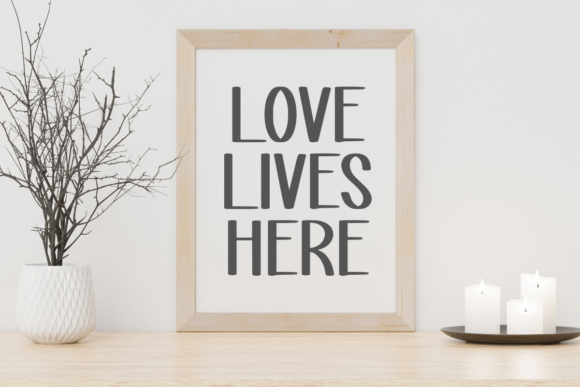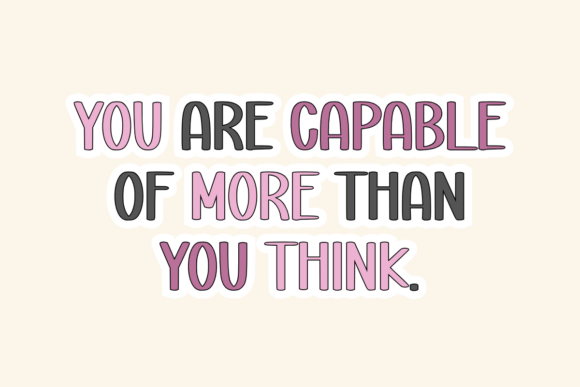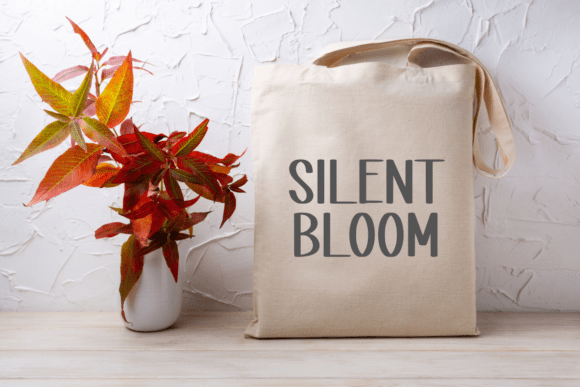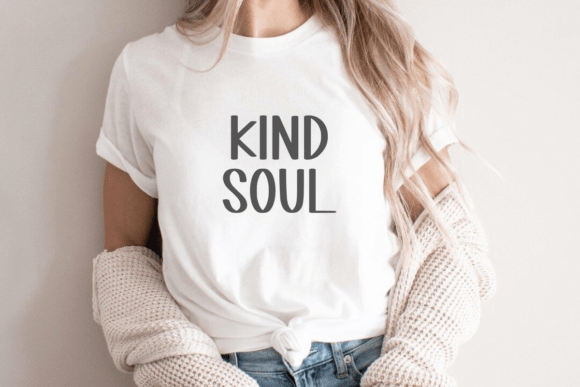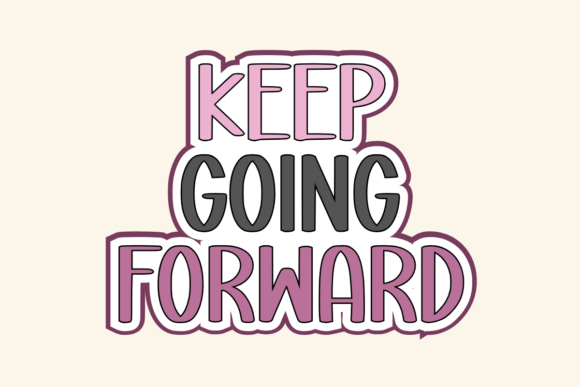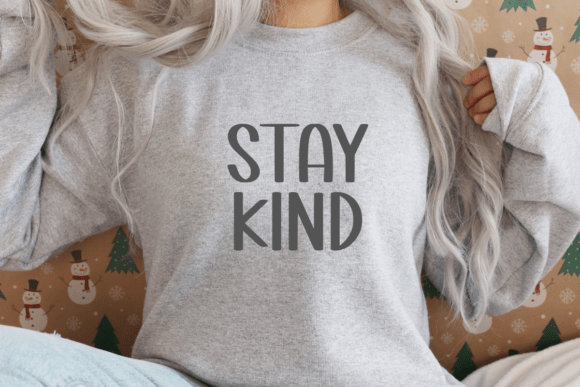
Capture the Essence of Joy and Creativity with Dreaming Handwriting Font
Are you looking for a font that can add a personal touch to your designs? Do you want to evoke feelings of joy and creativity in your audience? Look no further than the Dreaming Handwriting font. This delightful, bubbly sans serif font is perfect for designers and crafters who want to bring a handcrafted warmth to their projects.
The Perfect Choice for Designs that Need a Personal Touch
The Dreaming Handwriting font is ideal for designs that require a personal, approachable touch. Its rounded edges and soft shadow effect make it stand out beautifully on physical merchandise like t-shirts or stickers. Whether you are working on children’s book covers, nursery wall art, or vibrant social media quotes, this font is sure to capture the essence of joy and creativity.
A Rhythmic Flow that’s Both Legible and Charming
One of the standout features of the Dreaming Handwriting font is its rhythmic flow. The font has a natural, handcrafted feel that makes it both legible and incredibly charming. This makes it perfect for designs that require a personal touch, such as invitations, greeting cards, or social media posts.
Perfect for Physical Merchandise
The Dreaming Handwriting font is a great choice for physical merchandise like t-shirts, stickers, or tote bags. Its rounded edges and soft shadow effect give it a distinctive look that will make your designs stand out. Plus, its playful nature makes it perfect for designs that require a fun and youthful vibe.
Pair it with Bright, Pastel Color Palettes or Clean, Minimalist Backgrounds
To enhance the playful nature of the Dreaming Handwriting font, pair it with bright, pastel color palettes or clean, minimalist backgrounds. This will help to create a design that’s both visually appealing and engaging. For example, you could pair the font with a soft pink or baby blue background to create a sweet and feminine look.
An Excellent Primary Heading Font for Digital Creators
For digital creators, the Dreaming Handwriting font serves as an excellent primary heading font. Its playful nature and rhythmic flow make it perfect for inviting engagement and smiles from every viewer. Whether you’re creating social media posts, blog headers, or website titles, this font is sure to capture the essence of joy and creativity.
Why Choose the Dreaming Handwriting Font?
So why choose the Dreaming Handwriting font? Here are just a few reasons:
• Handcrafted warmth: The font has a natural, handcrafted feel that makes it perfect for designs that require a personal touch.
• Legible and charming: The font’s rhythmic flow makes it both legible and incredibly charming.
• Perfect for physical merchandise: The font’s rounded edges and soft shadow effect make it stand out beautifully on physical merchandise.
• Playful nature: The font’s playful nature makes it perfect for designs that require a fun and youthful vibe.
In conclusion, the Dreaming Handwriting font is a delightful, bubbly sans serif font that’s perfect for designers and crafters who want to capture the essence of joy and creativity in their projects. Its handcrafted warmth, rhythmic flow, and playful nature make it ideal for designs that require a personal touch. Whether you’re working on physical merchandise or digital creations, this font is sure to bring a smile to your audience’s face.